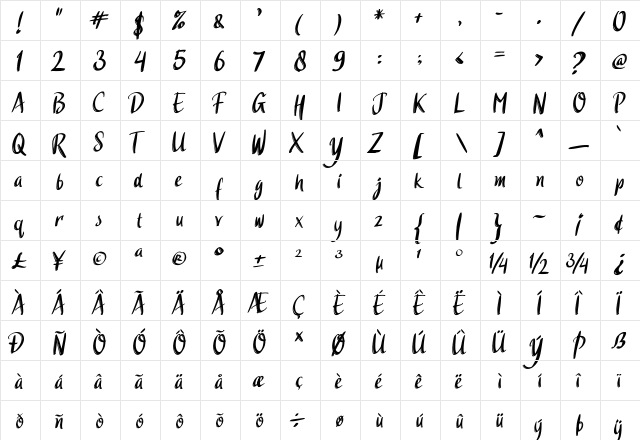
Higeja FREE Regular
Design Context for Higeja FREE Typeface
Higeja FREE is a composed and adaptable typeface that performs quietly and consistently across a wide range of design contexts.